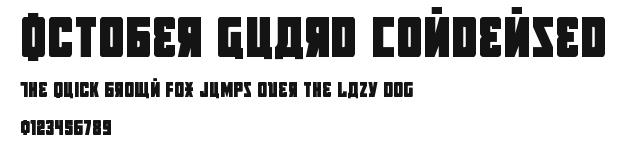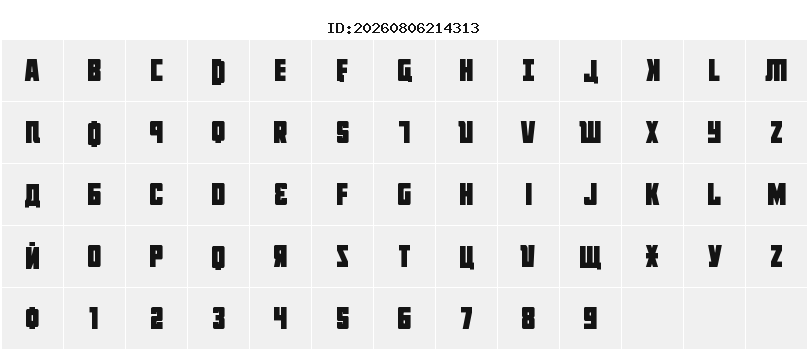
October Guard Condensed Preview
• Font Name: October Guard Condensed
• Font Style: Condensed
• Full Font Name: October Guard Condensed
• PostScript Name: OctoberGuardCondensed
About October Guard Condensed.ttf
October Guard Condensed.ttf is a modern, elegant sans-serif font designed for ultimate readability and visual harmony. Perfect for branding, headlines, web design, and print materials.